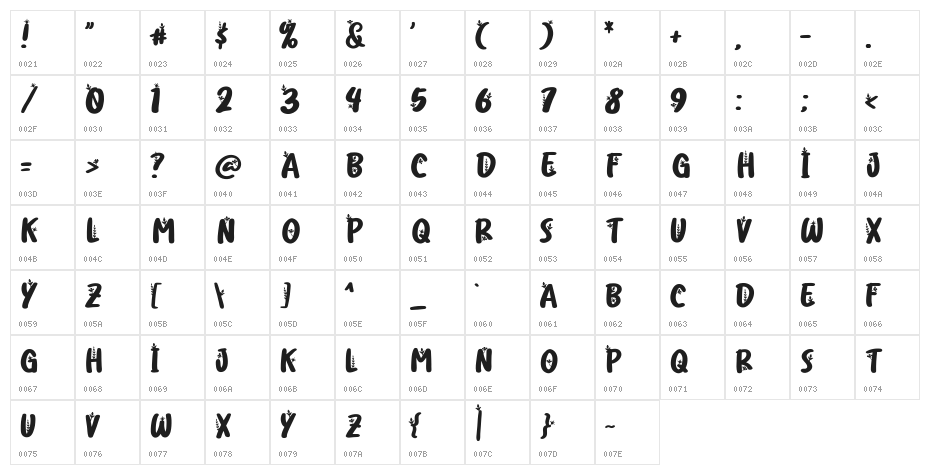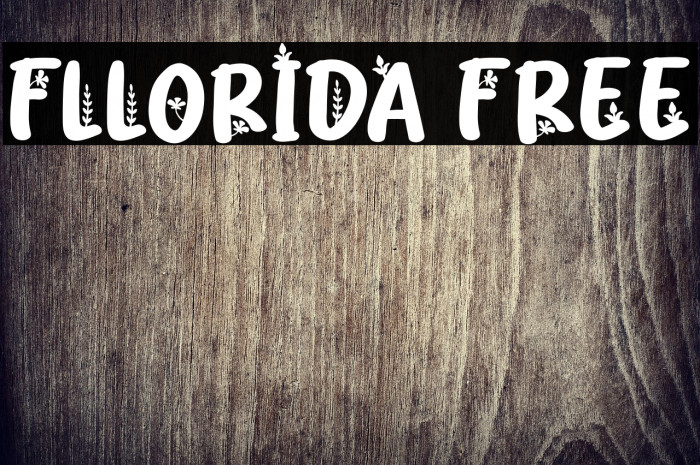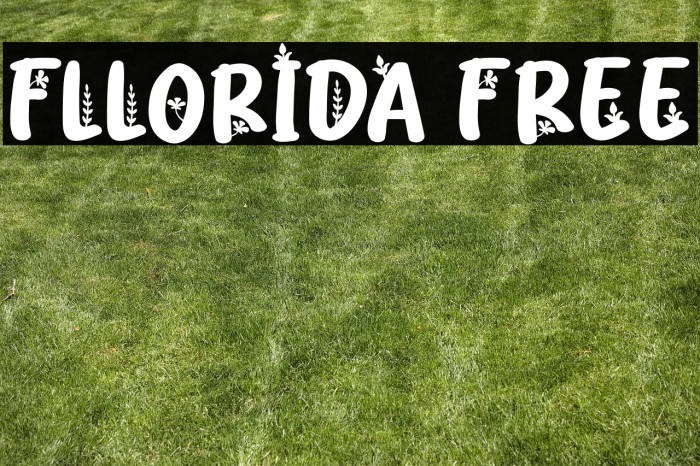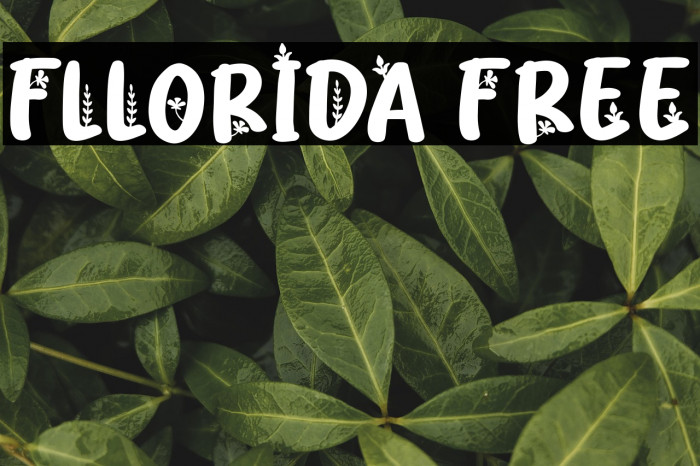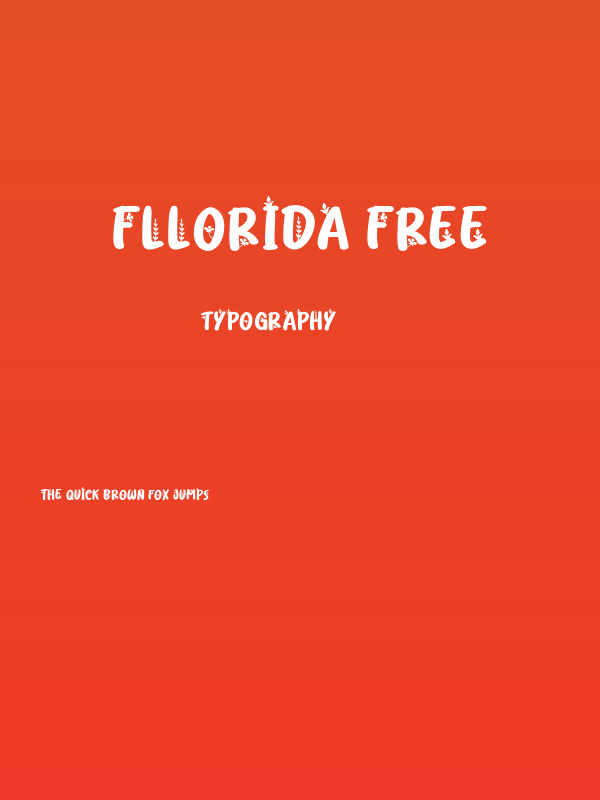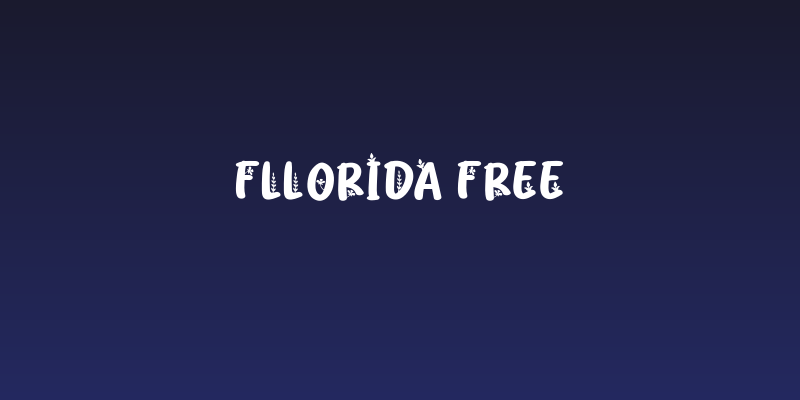
Fllorida FREE Font
Fllorida FREE Description
This playful and decorative font features bold, rounded characters adorned with whimsical floral accents. Each letter is embellished with small, stylized leaves and stems, adding a touch of nature-inspired charm. The font maintains a consistent thickness throughout, creating a cohesive and visually appealing look. Its unique design makes it ideal for projects that require a fun and creative touch, such as children's books, greeting cards, or event invitations. The font's boldness ensures readability while its decorative elements provide a distinctive flair.
Proposed ProjectsIdeal for children's books, greeting cards, event invitations, and playful branding.